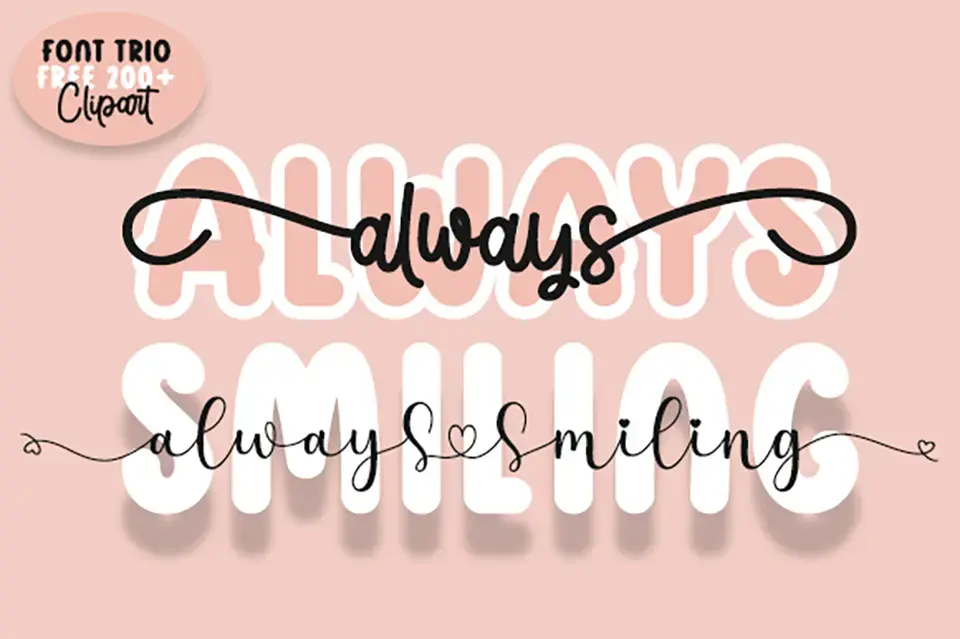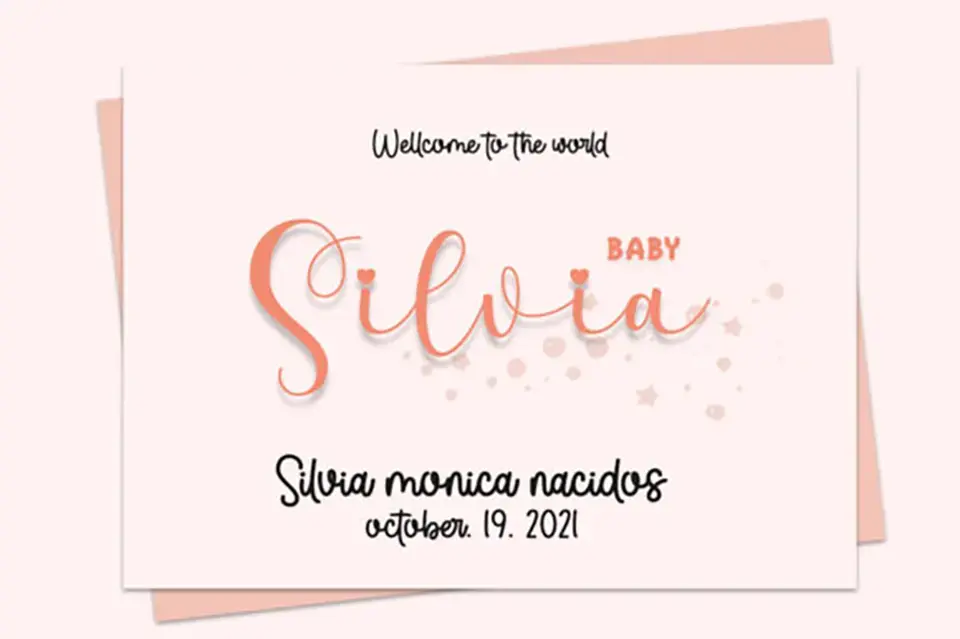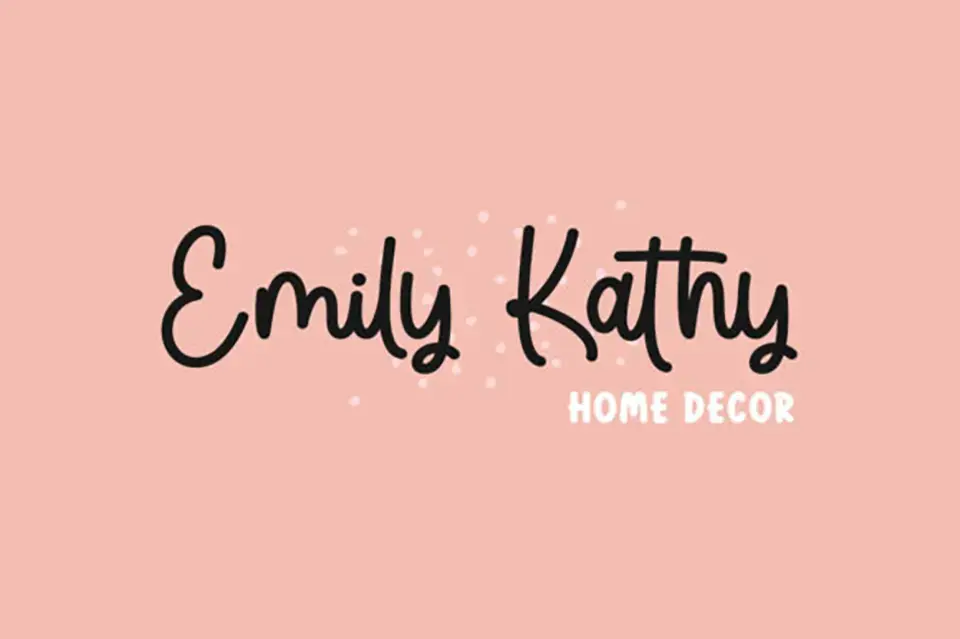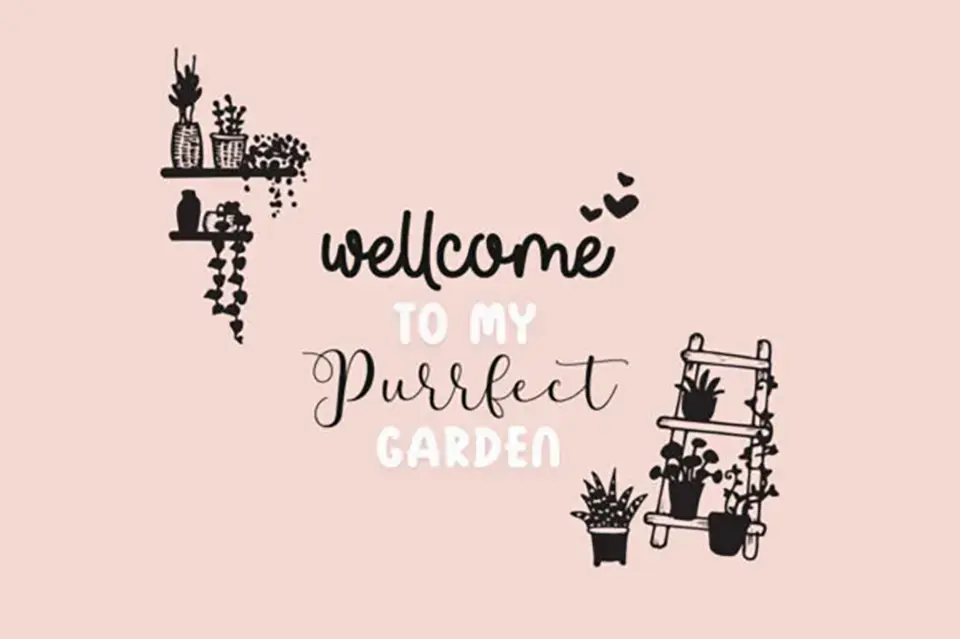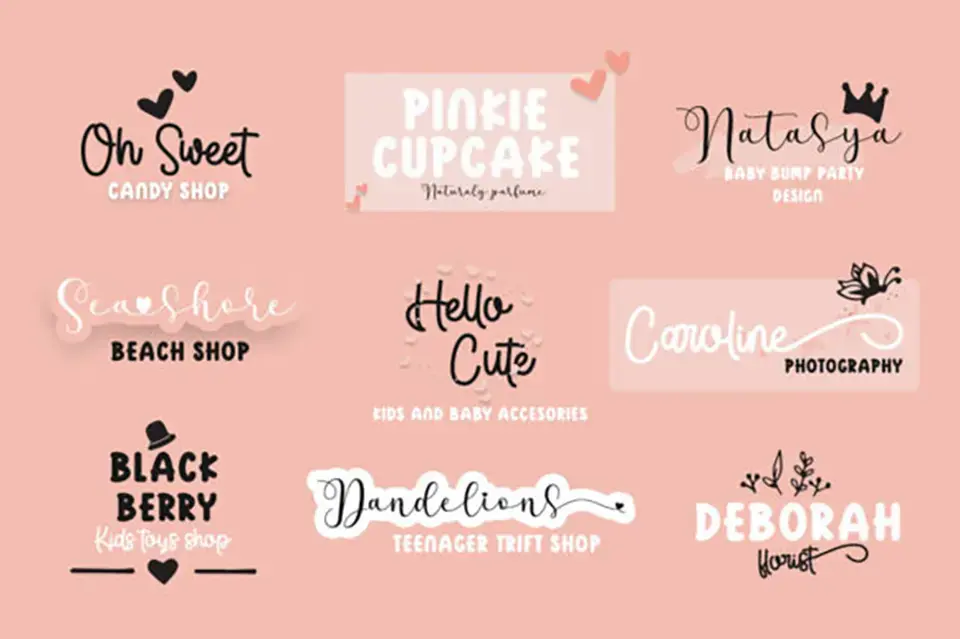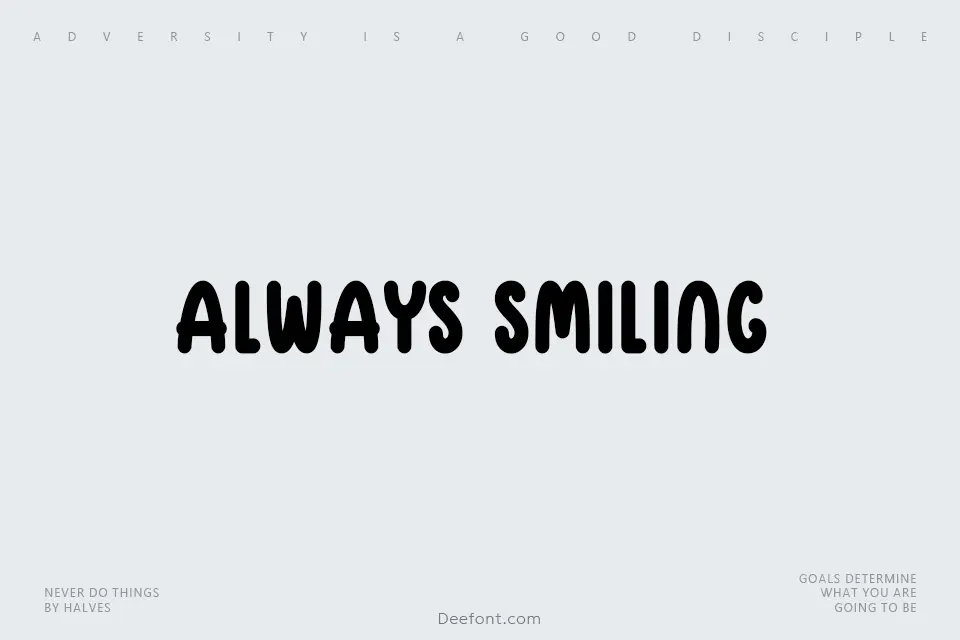
Always Smiling Font
Always Smiling is a delightful handwritten script typeface featuring flowing, organic letterforms that evoke warmth and personality. Designed with smooth, connected strokes reminiscent of personal handwriting, this font excels in creating approachable yet elegant visual communication. Perfect for wedding invitations, greeting cards, poster designs, social media graphics, and branding projects where a human touch is desired. The font's natural curves and consistent baseline make it ideal for both display headlines and decorative text applications that require charm and contemporary elegance.